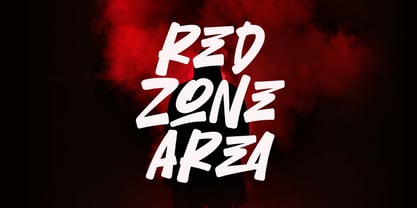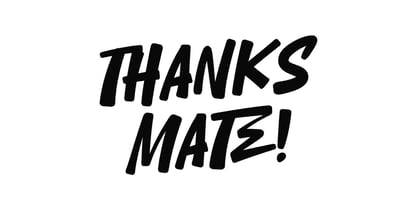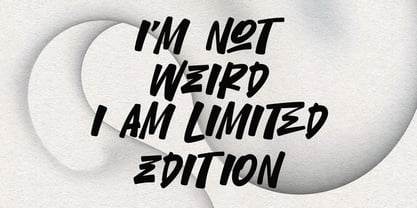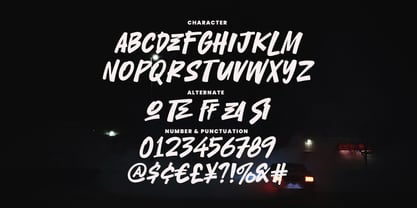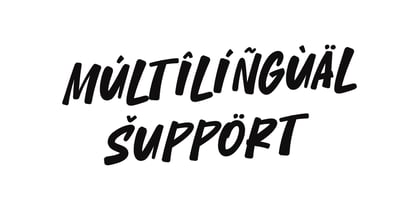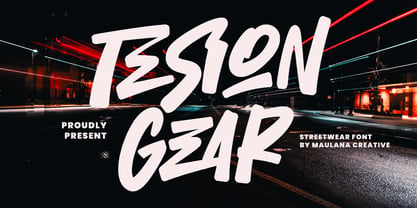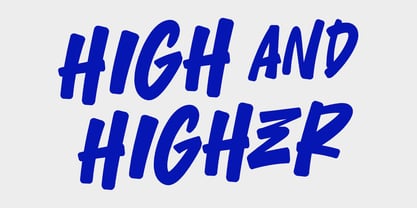
MC Tesion Gear
by Maulana Creative
The MC Tesion Gear Font Family was designed by Gilang Maulana and published by Maulana Creative. MC Tesion Gear contains 1 styles. More about this family
Unleash the raw energy of the streets with Tesion Gear! Tesion Gear is a bold, high-impact marker font designed for those who want their designs to speak loud and clear. Inspired by urban graffiti and contemporary streetwear culture, this font features thick, expressive strokes that give your work an authentic, hand-drawn feel. Whether you're designing edgy t-shirt graphics, striking posters, modern logos, or social media content, Tesion Gear provides the perfect balance of grit and readability. It comes packed with unique alternates and multilingual support, allowing you to create truly custom typography for any project.
Designers: Gilang Maulana
Foundry: Maulana Creative